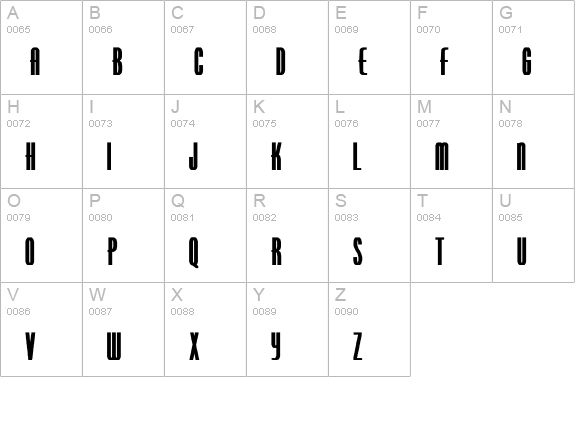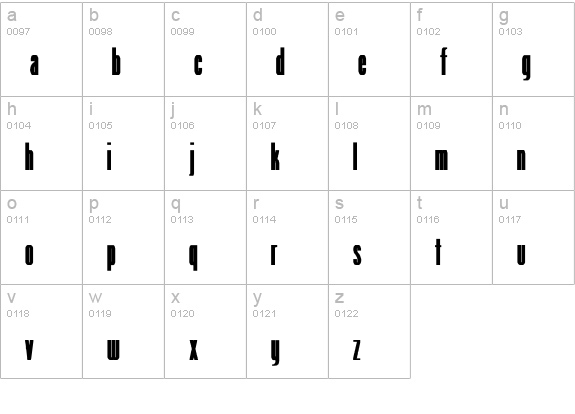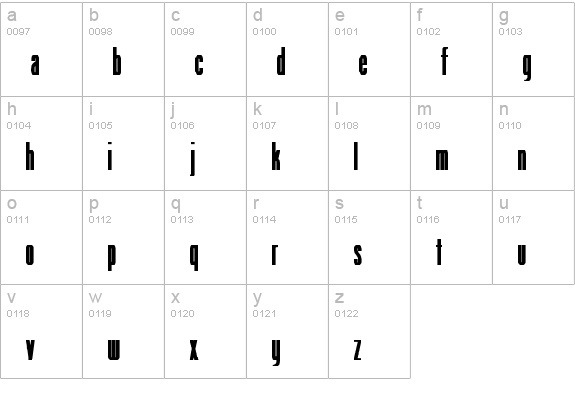
Venus-Normal Wd Bold is the standard, neutral variant in the Venus typeface family \xE2\x80\x94 well suited to general body text, paragraphs, and standard typographic work.
Venus-Normal Wd Bold is a stunning font that exudes confidence and elegance. Its bold strokes make a bold statement, making it perfect for attention-grabbing headlines, stylish logos, and impactful design projects. With its sleek and modern design, this font is sure to add a touch of sophistication to any creative endeavor. But what sets Venus-Normal Wd Bold apart is not just its aesthetic appeal, but also its availability. This font is freely available to download at FontsMarket.com, making it accessible to designers, artists, and enthusiasts alike. Whether you're a professional looking for the perfect font to elevate your branding or someone with a passion for typography seeking to enhance your personal projects, Venus-Normal Wd Bold is there to fulfill your needs. The versatility of Venus-Normal Wd Bold is another aspect worth mentioning. Its clean and legible letterforms make it suitable for a wide range of applications, from print materials such as posters, brochures, and book covers, to digital designs including websites, social media graphics, and mobile apps. No matter the medium, Venus-Normal Wd Bold will effortlessly command attention and leave a lasting impression. Furthermore, this font boasts excellent readability, ensuring that your message is conveyed effectively. Its well-defined characters and generous spacing contribute to a smooth reading experience, making it ideal for body text, captions, and subtitles. Whether it's a magazine article, a product description, or a presentation slide, Venus-Normal Wd Bold will deliver your content with clarity and professionalism. In conclusion, Venus-Normal Wd Bold is a visually striking font that combines style with accessibility. Its availability as a free download at FontsMarket.com makes it a valuable asset for any designer or typographer. So why wait? Take advantage of this opportunity and enhance your designs with the elegance and impact of Venus-Normal Wd Bold today.